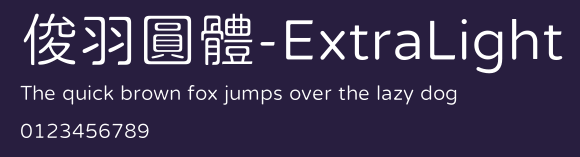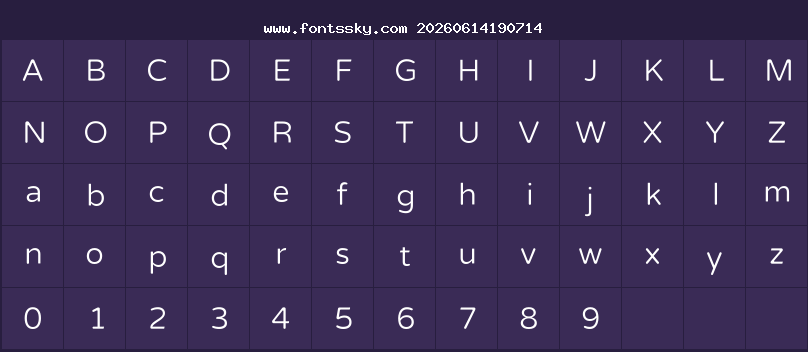
俊羽圓體-ExtraLight Preview
• Font Name: 俊羽圓體-ExtraLight
• Font Style: ExtraLight
• Full Font Name: 俊羽圓體-ExtraLight
• PostScript Name: YuPearl-ExtraLight
• Character Count: 9563
About 俊羽圓體-ExtraLight.ttf
俊羽圓體-ExtraLight.ttf is a modern, elegant sans-serif font designed for ultimate readability and visual harmony. Perfect for branding, headlines, web design, and print materials.